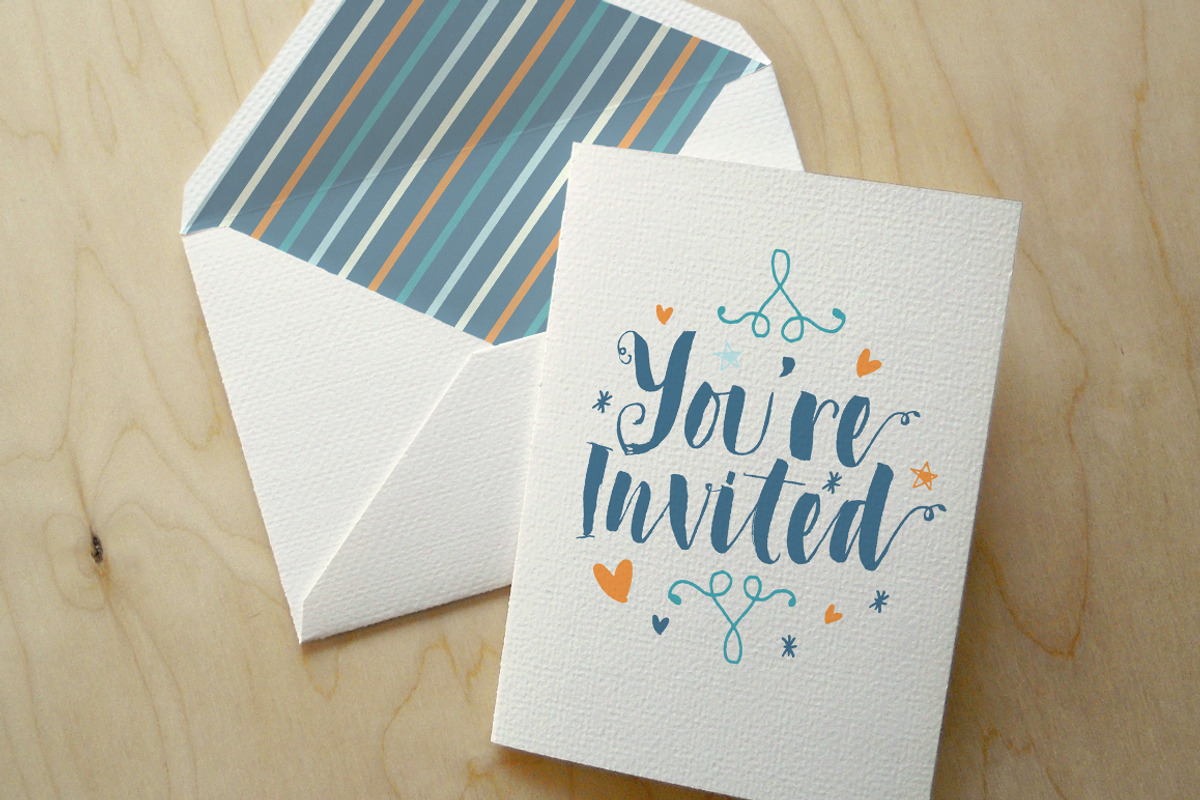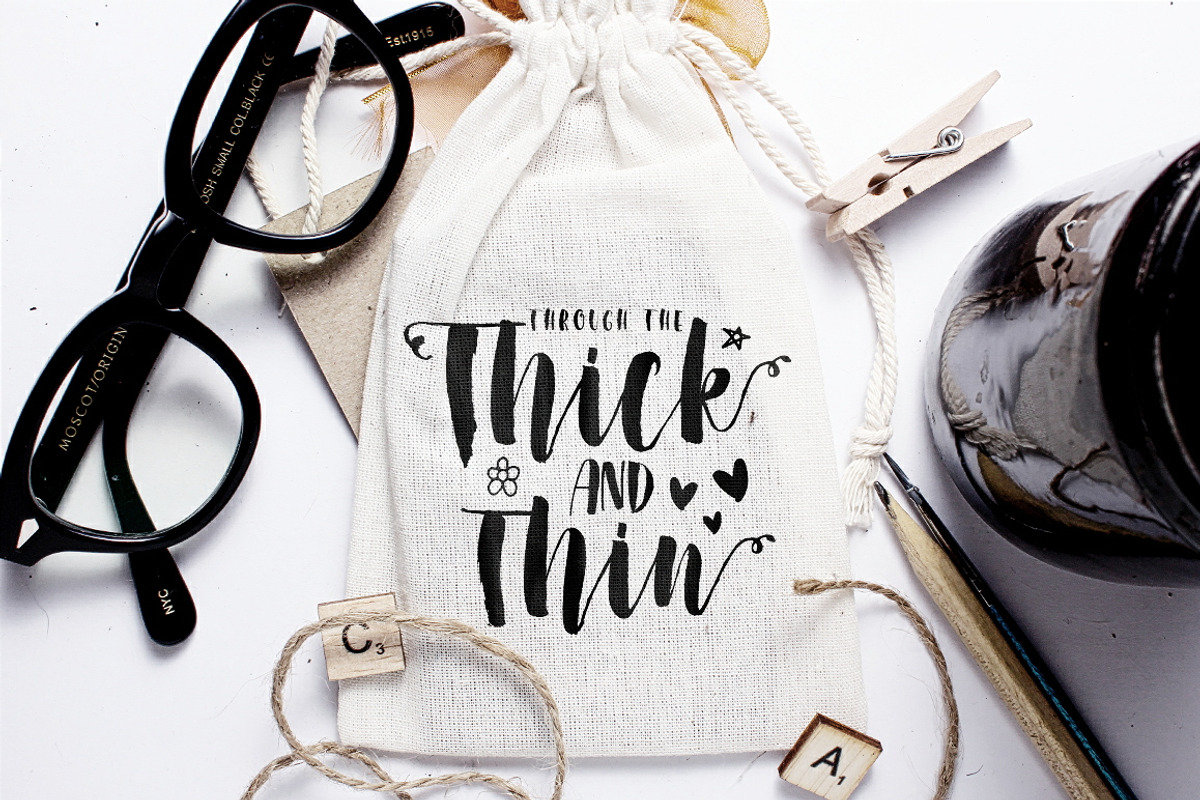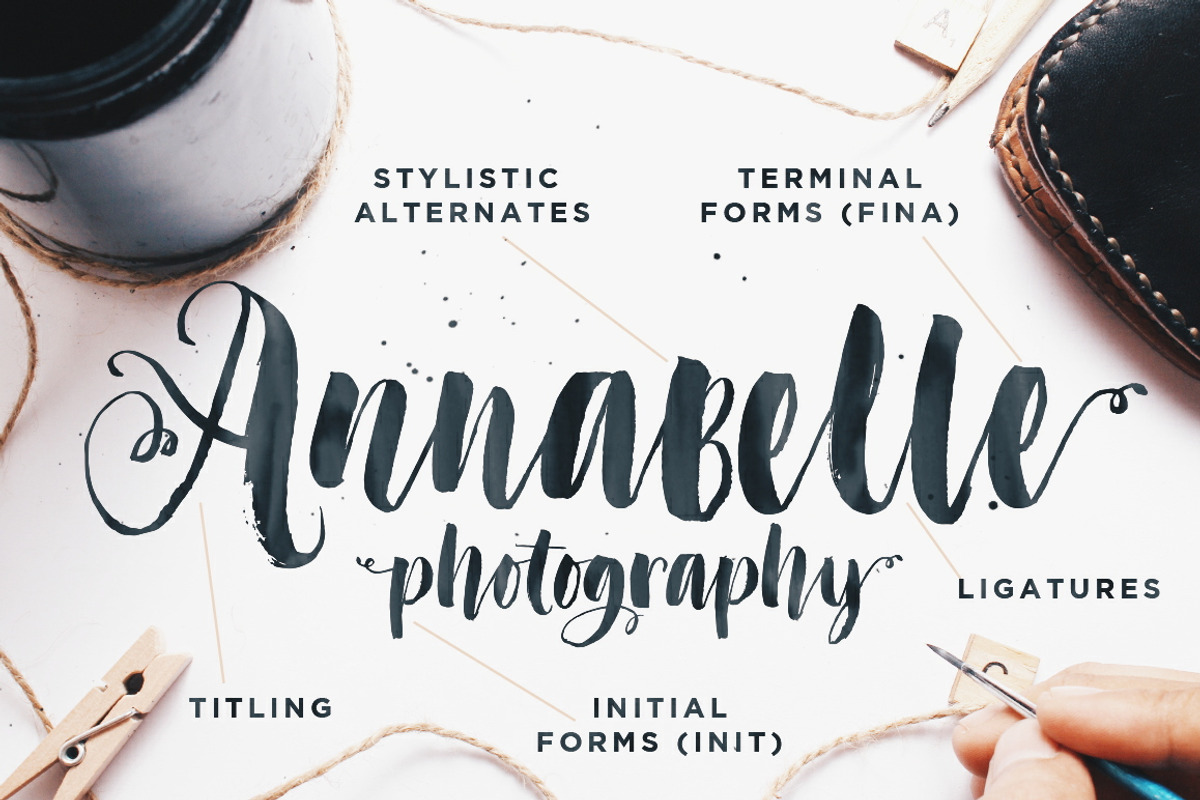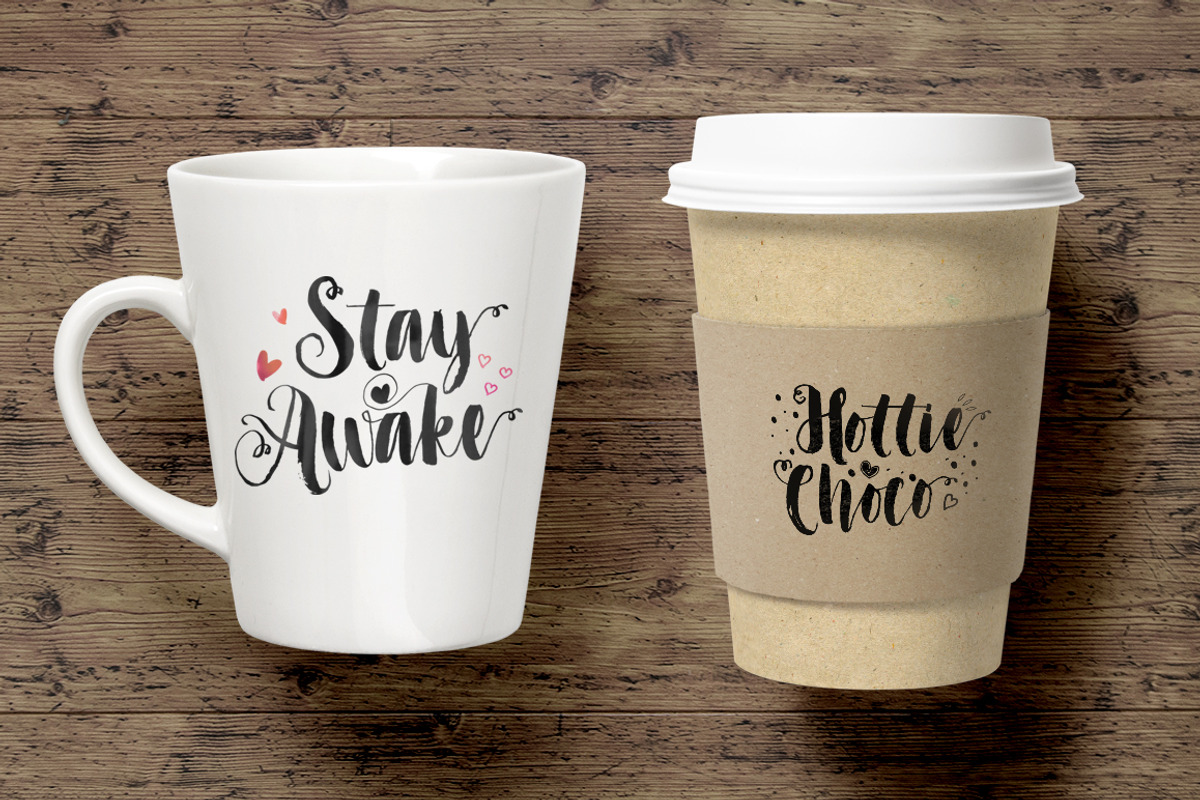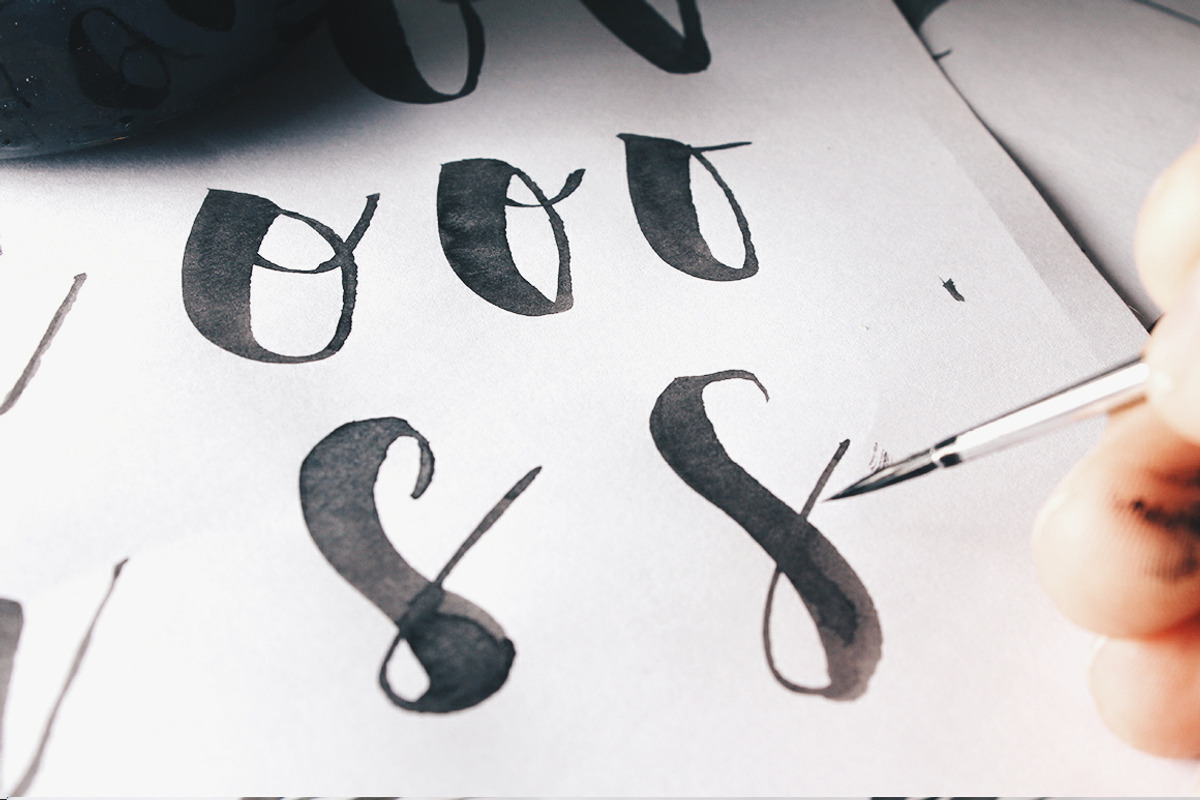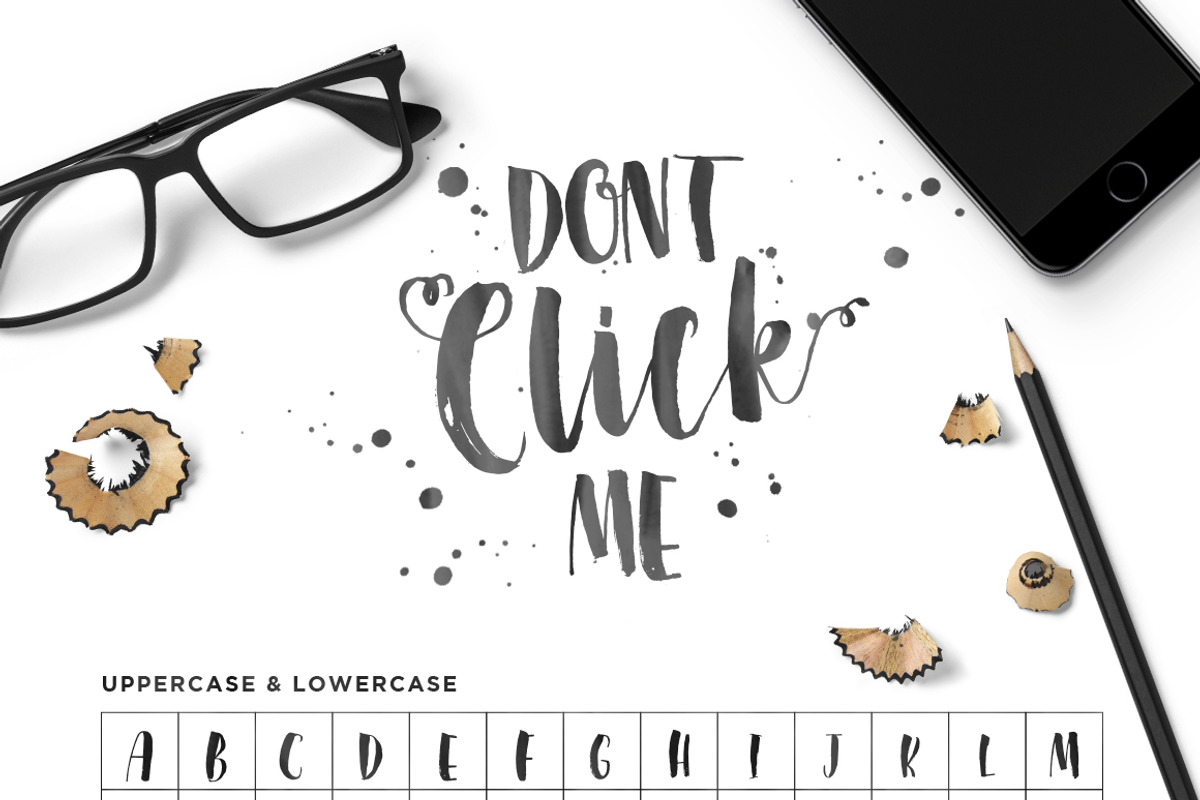
Don't Click Me wedding script font
Don't Click Me wedding script font by Ian Irwanwismoyo is a font selected for branding, posters, packaging, typography.
- Cause i feel pretty addicted to these kinda font lately :) Its the most complex font that i've ever made, contains so many features and styl
- CONTENTS 1.) Don't Click Me : a brush and ink font that 100% handwritten straight from the paper to fulfil your "handmade feels" needs, it c
- Stylistic Alternates : just in case you doesn't like the standard letters looks, there's always a better options for you.
- Initial and Terminal Forms : you still can shine with an lowercase too, Initial Forms are a lowercase with swirl at the front to open the wo
- Ligatures : an auto-changer for double letters so it doesn't looks the same, to maintain the handwriting feels, and there's a special ligatu